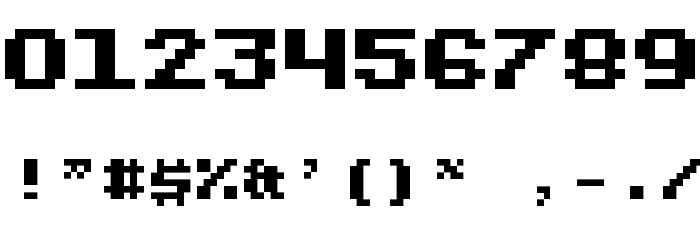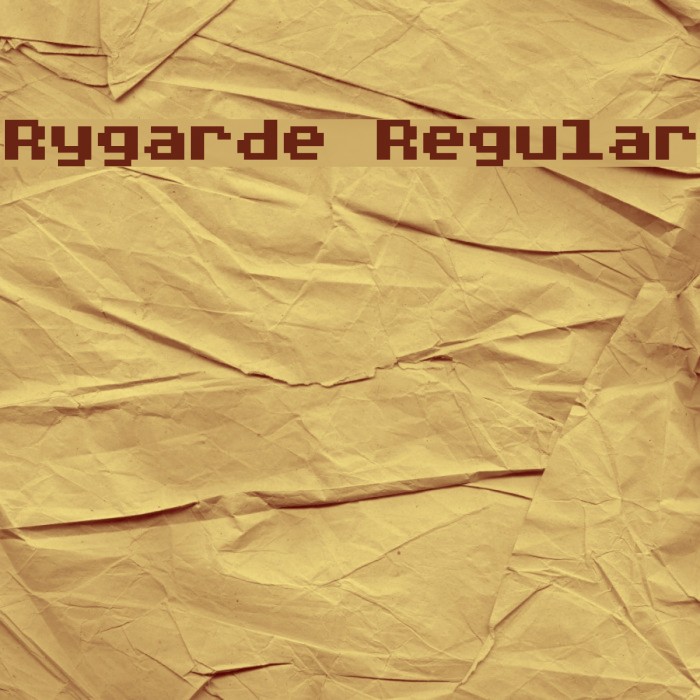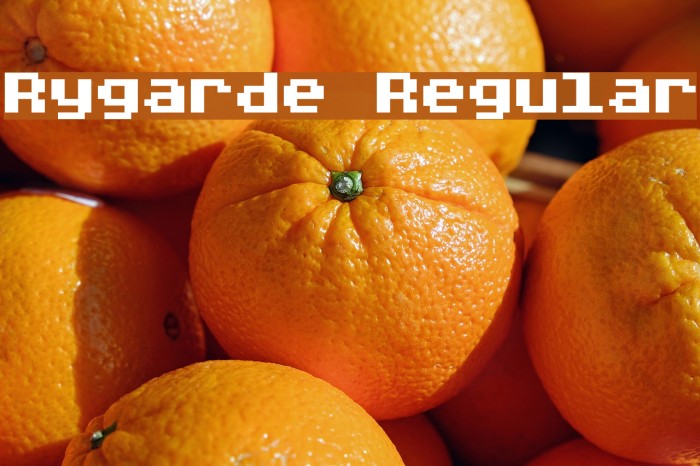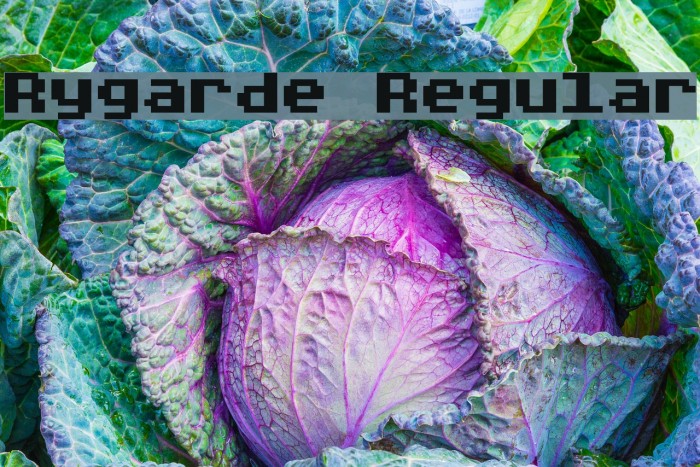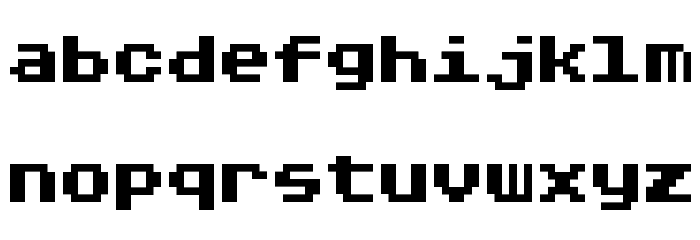
Rygarde Regular Font
Rygarde Regular Description
This font features a pixelated, blocky design reminiscent of early digital displays and retro video games. Each character is composed of square, uniform pixels, giving it a distinctly digital and geometric appearance. The uppercase and lowercase letters maintain a consistent height, contributing to a monospaced feel, although it is not strictly monospaced. The numbers and special characters follow the same pixelated style, ensuring a cohesive look across all glyphs. This font's nostalgic aesthetic makes it ideal for projects that aim to evoke a sense of retro technology or vintage gaming culture.
A pixelated, blocky font with a retro digital aesthetic from Uncategorized fonts.
- Proposed Projects: Ideal for retro video game designs, digital art projects, and tech-themed branding.
- Overall Style: Vintage
- Use Case: Logos, Headlines, Digital displays